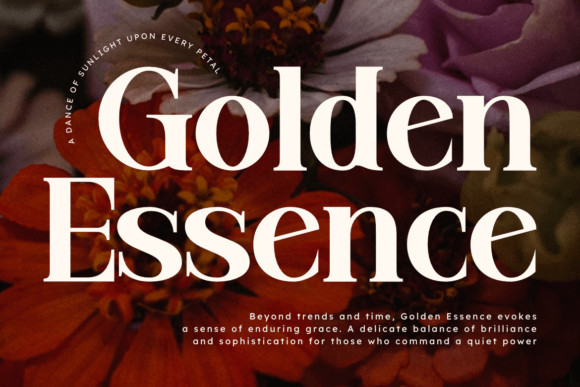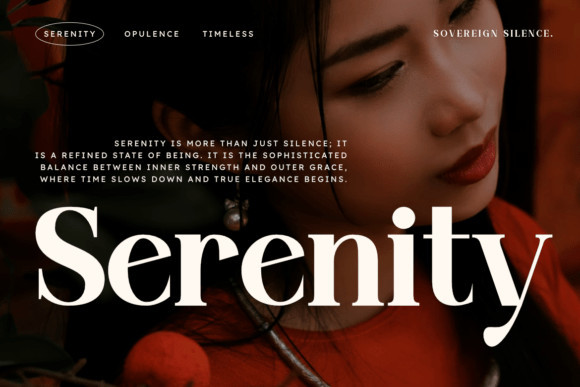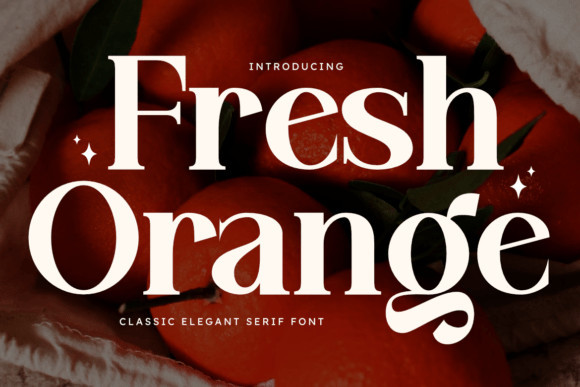
Fresh Orange Font
Fresh Orange Font is a classic yet contemporary serif font that radiates charm and elegance. With its unique soft curves and playful terminals, this font captures a perfect balance between vintage retro vibes and modern sophistication. It’s designed to add a “juicy” personality to your creative projects.
The family includes both Regular and Italic styles, giving you the flexibility to create elegant hierarchies in your layouts. Whether you are designing a high-end food brand, a lifestyle magazine, or organic product packaging, Fresh Orange brings a warm and inviting aesthetic that is hard to miss.